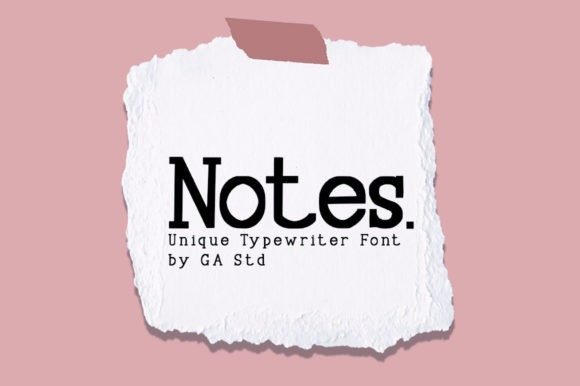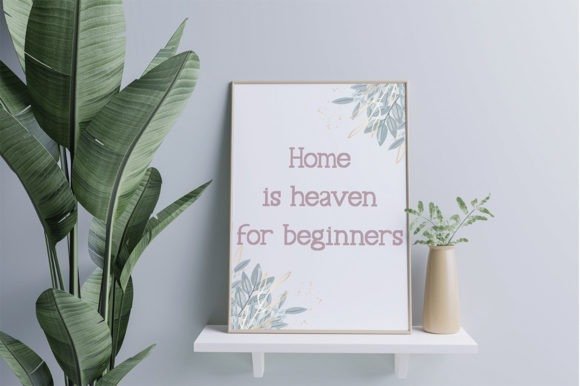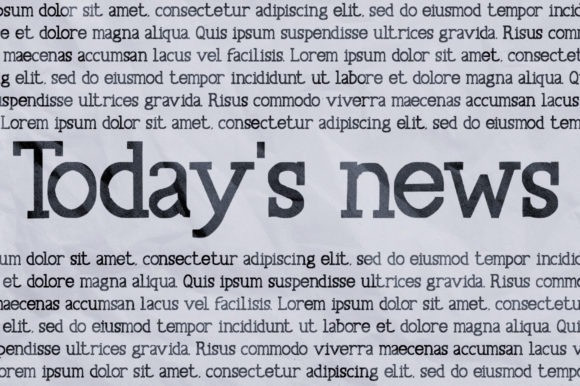
Notes Font
Notes font. It works incredibly well on various design ideas that require a neat and retro vibe. Your crafting options are limitless with Notes!